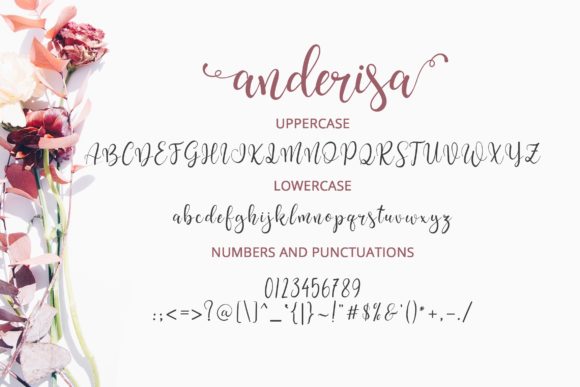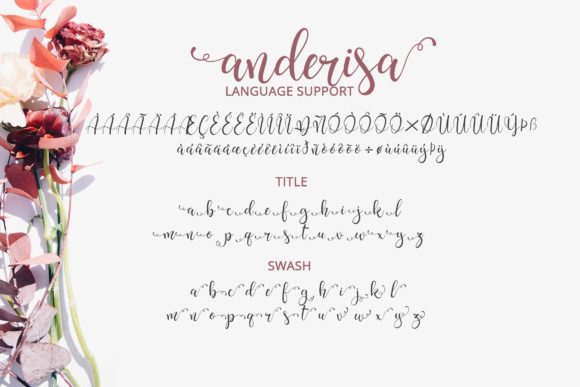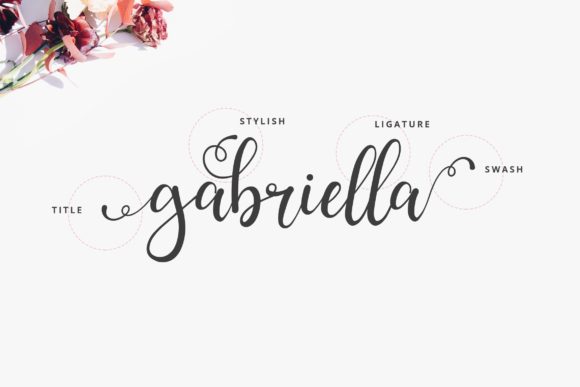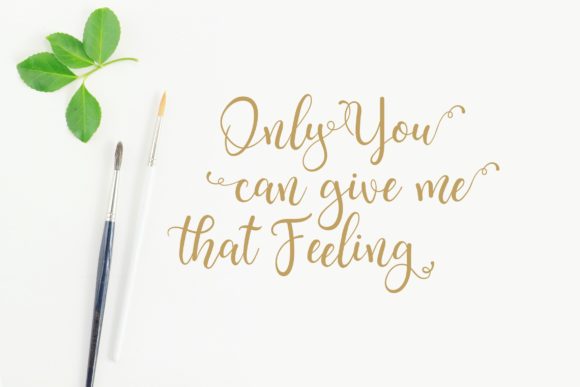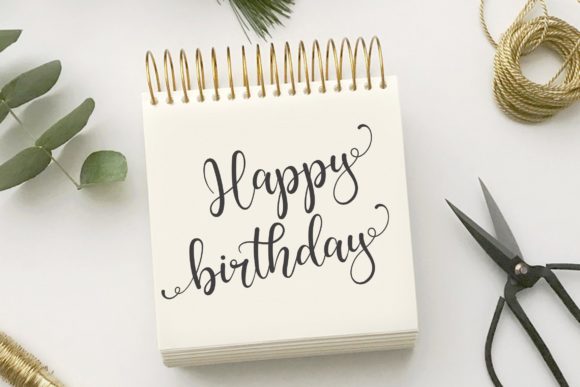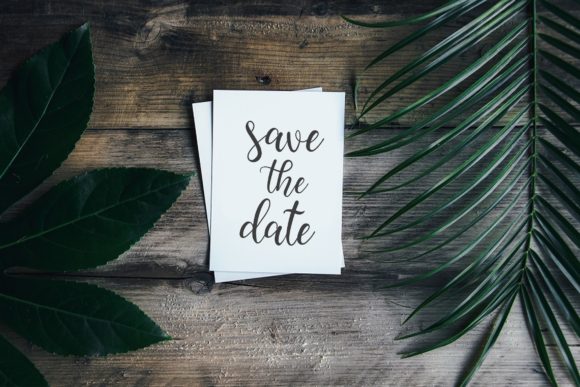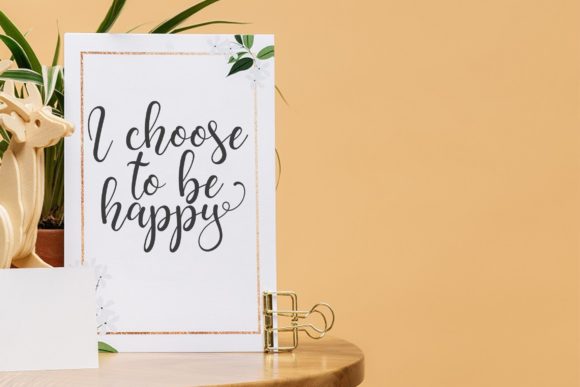
Anderisa Font
About Anderisa Font
Anderisa is a delicate and cute script font. It is perfect for wedding invitations, branding, apparel and much more!